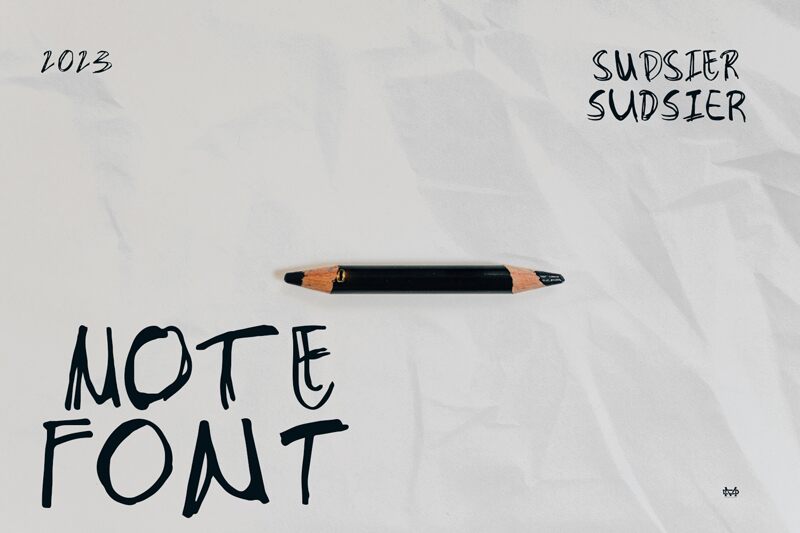
Sudsier font by madeDeduk is a free script font with a stylish, contemporary flair. The dynamic typeface was drawn by hand to carry an expressive character and flowing rhythm. Unique shapes and trash handwriting styles are what complete the font’s artistic, natural strokes. Irregular layouts add to the casual elegance that is a part of all text pieces in this typeface.
A handwritten aesthetic makes the Sudsier font perfect for projects where personal touches are required such as quotes, social media posts, posters, and printed advertisements. It makes ideal headings for covers of magazines, albums or books where title design instantly attracts attention through its beauty. Use it in packaging design or on branding elements like business cards of creative agencies and artists’ logos.